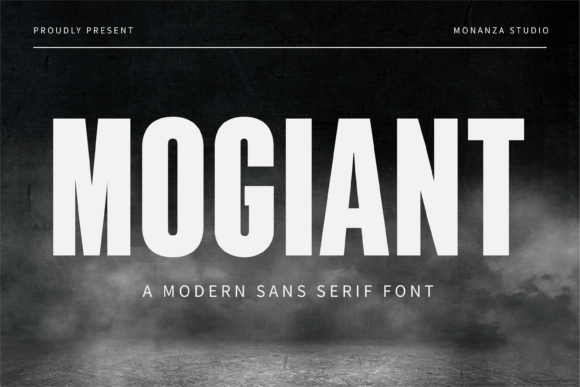
Introducing Mogiant Font, the perfect typeface to add a touch of boldness and uniqueness to your designs. Created by the talented monanza studio, this contemporary sans serif font is specifically designed for Halloween poster enthusiasts. Let the captivating appeal of Mogiant elevate your creations and leave a lasting impression on your audience.
With its distinctive and eye-catching style, Mogiant Font will grab attention and ensure your designs stand out from the crowd. Whether you're designing spooky posters, eerie invitations, or bone-chilling banners, this font is your go-to choice. Its versatility allows it to effortlessly blend into a wide range of graphic design applications, making it a must-have for any designer's toolkit.
Mogiant Font is more than just a font; it's an experience. Its hauntingly beautiful curves and sharp edges evoke a sense of mystery and excitement, perfectly capturing the essence of Halloween. The carefully crafted characters possess an otherworldly charm that will transport viewers to a realm of dark enchantment.